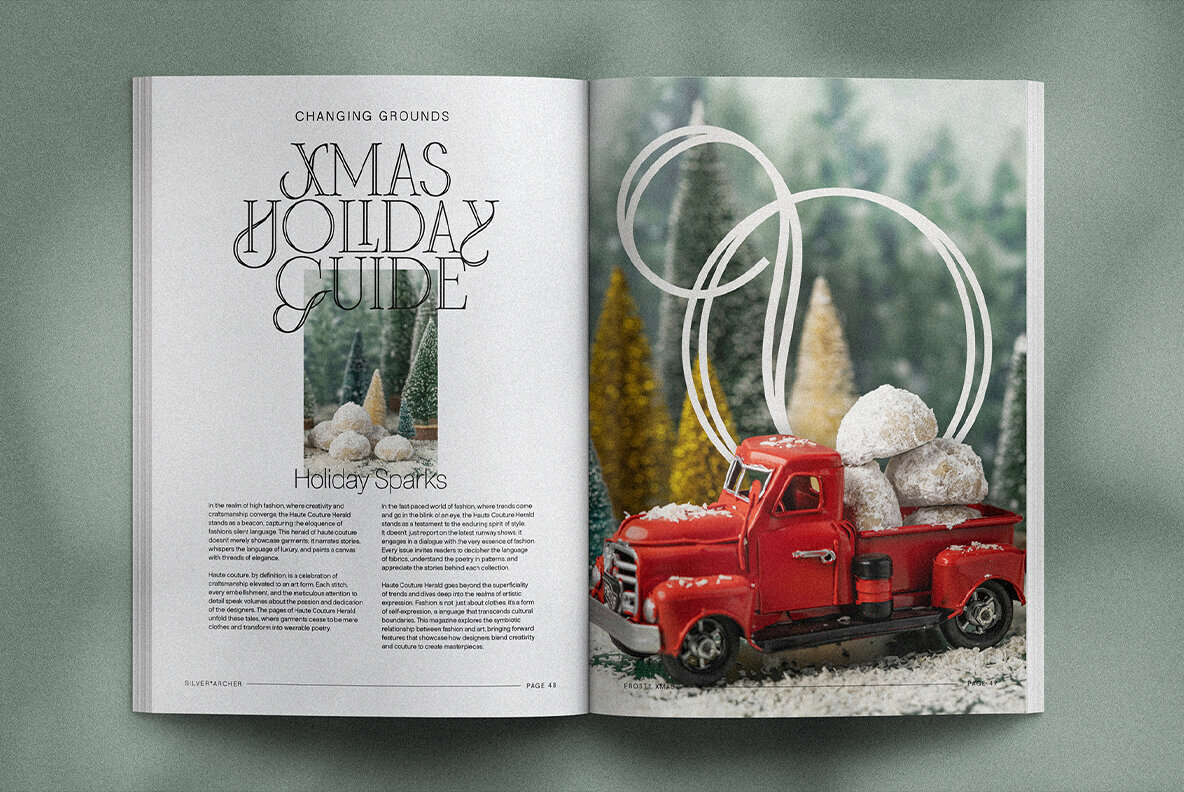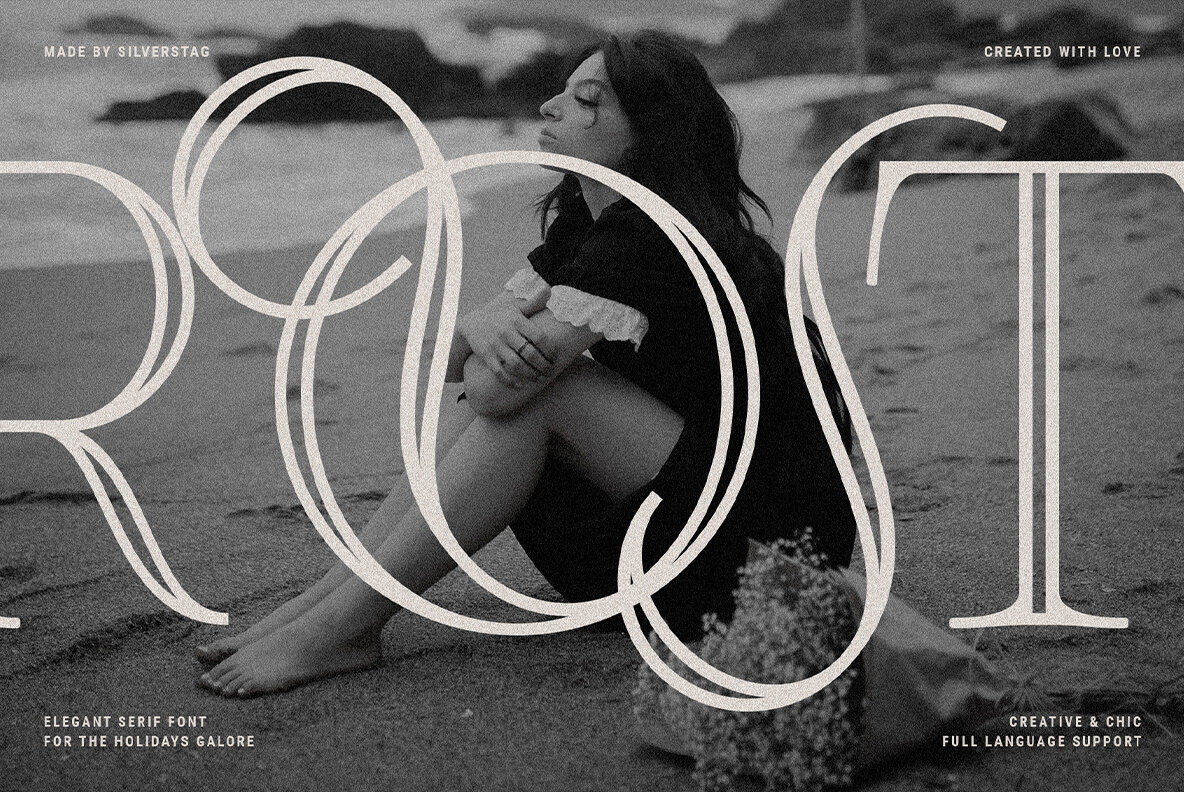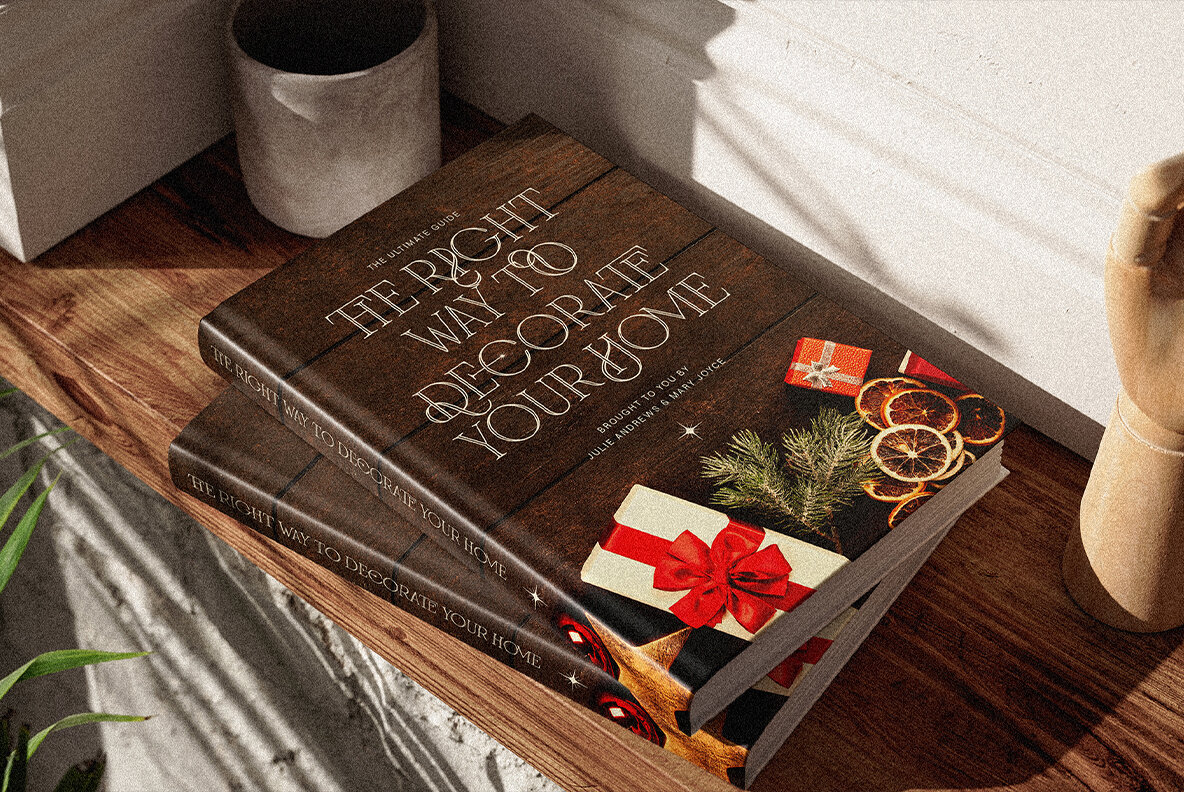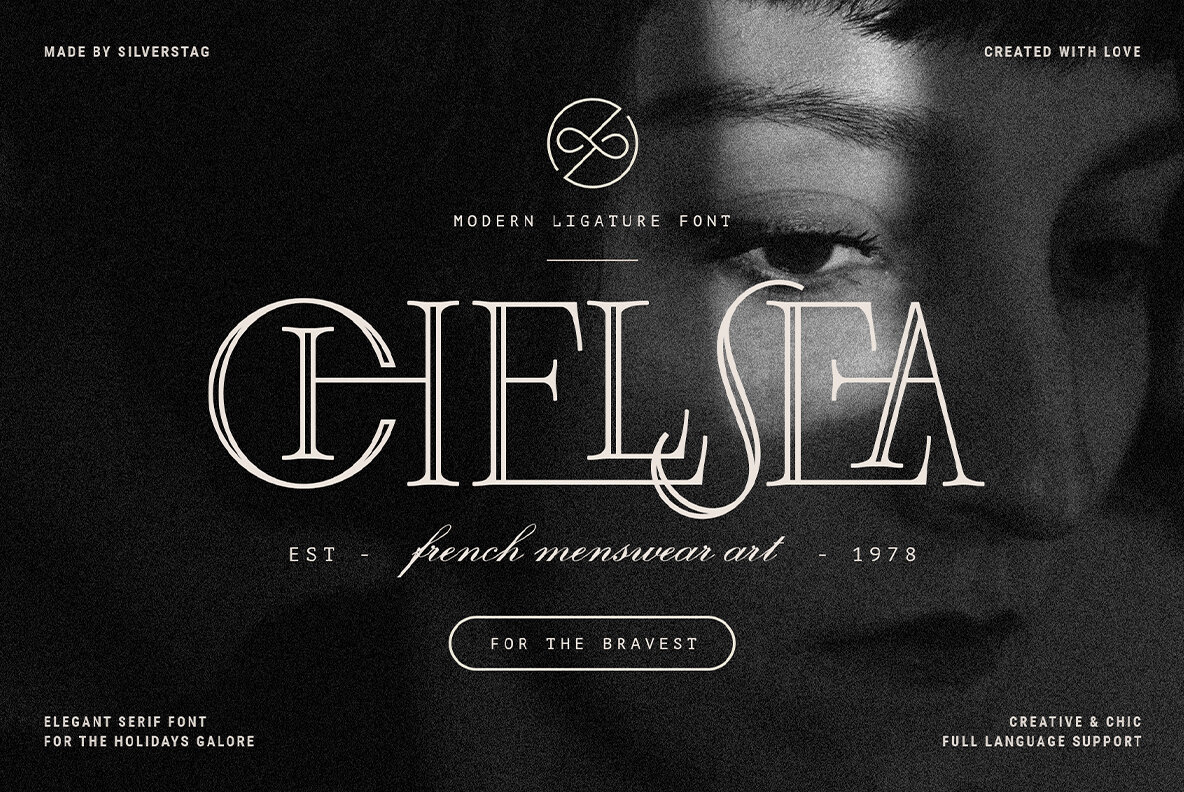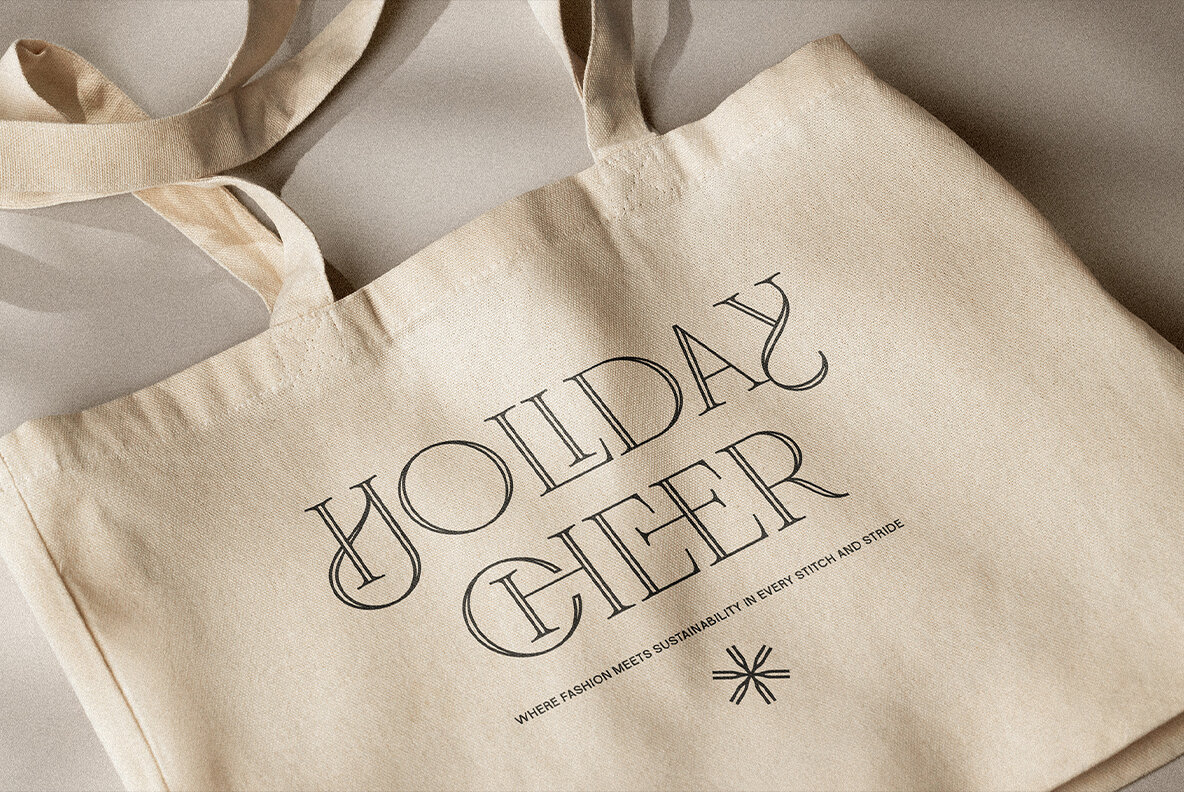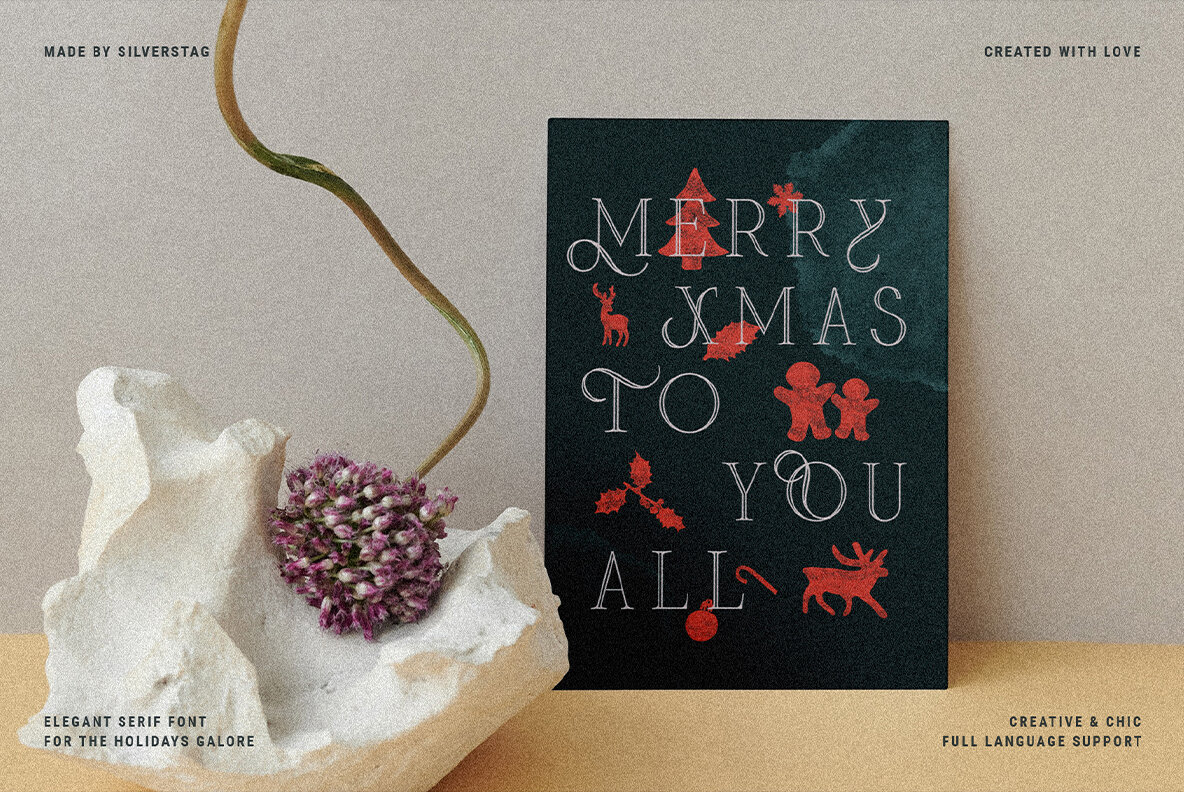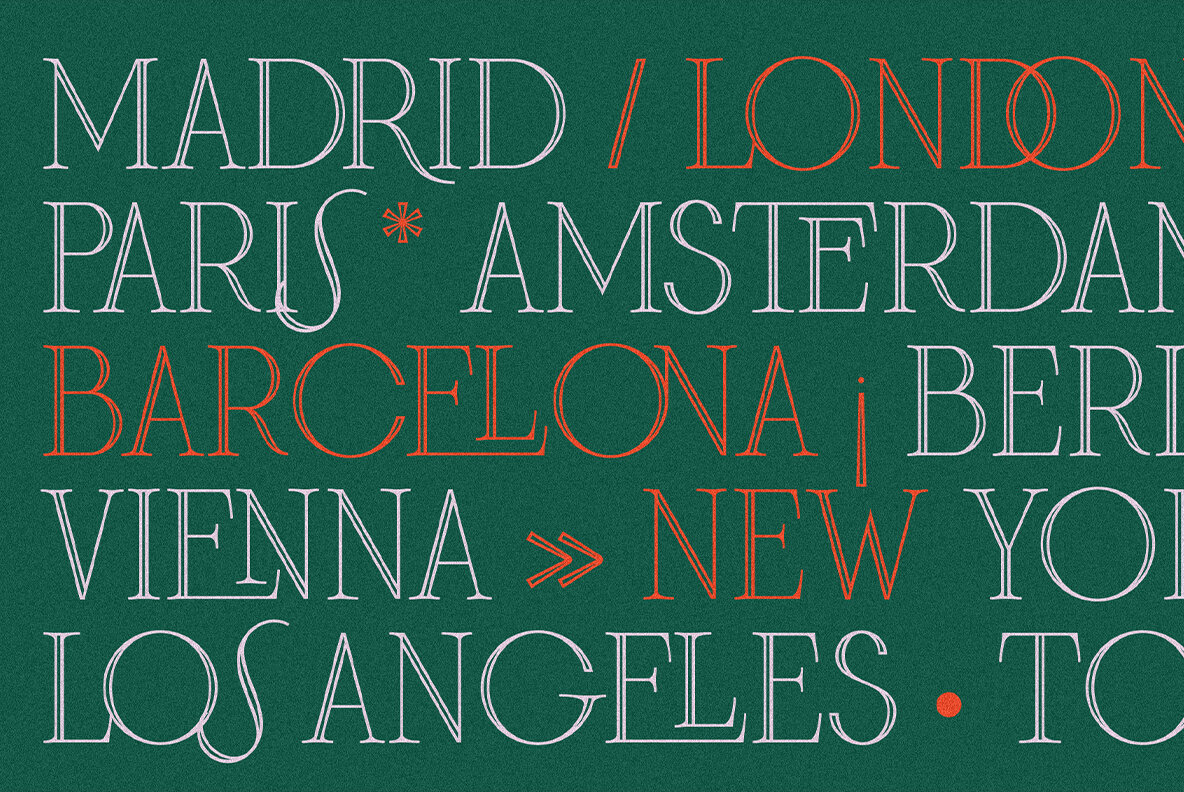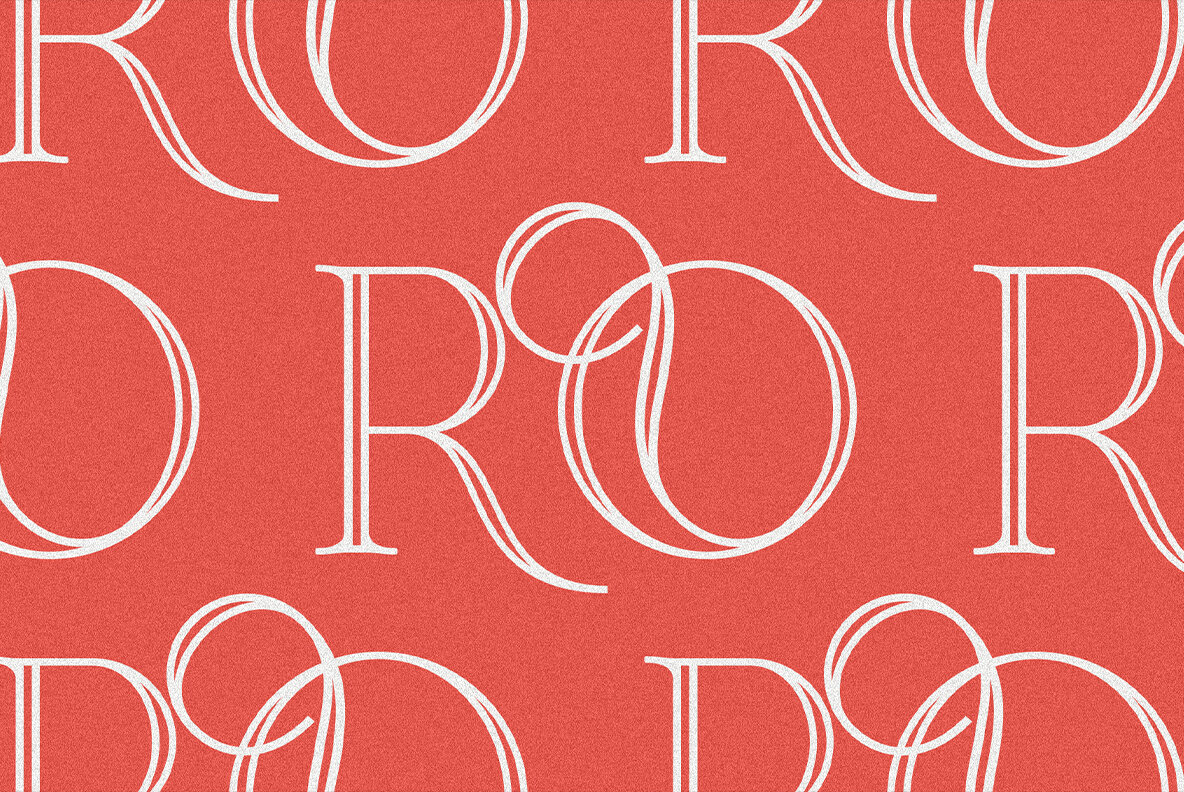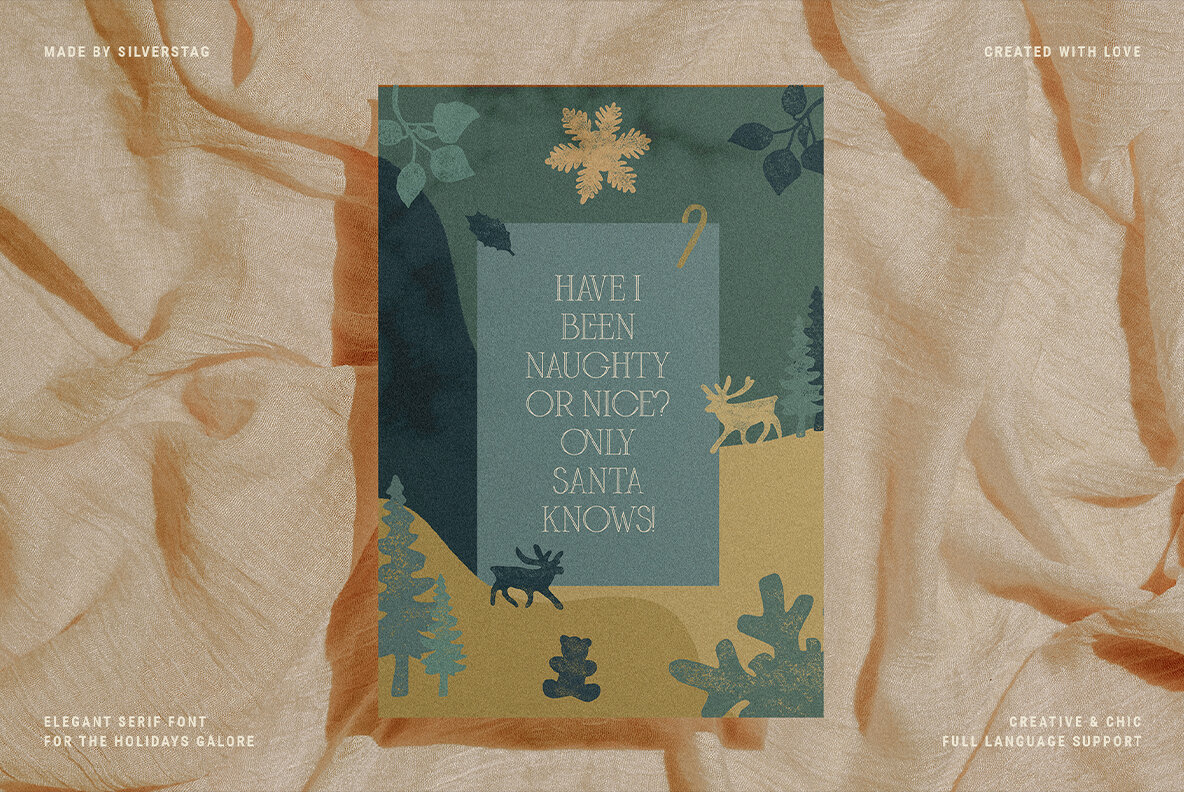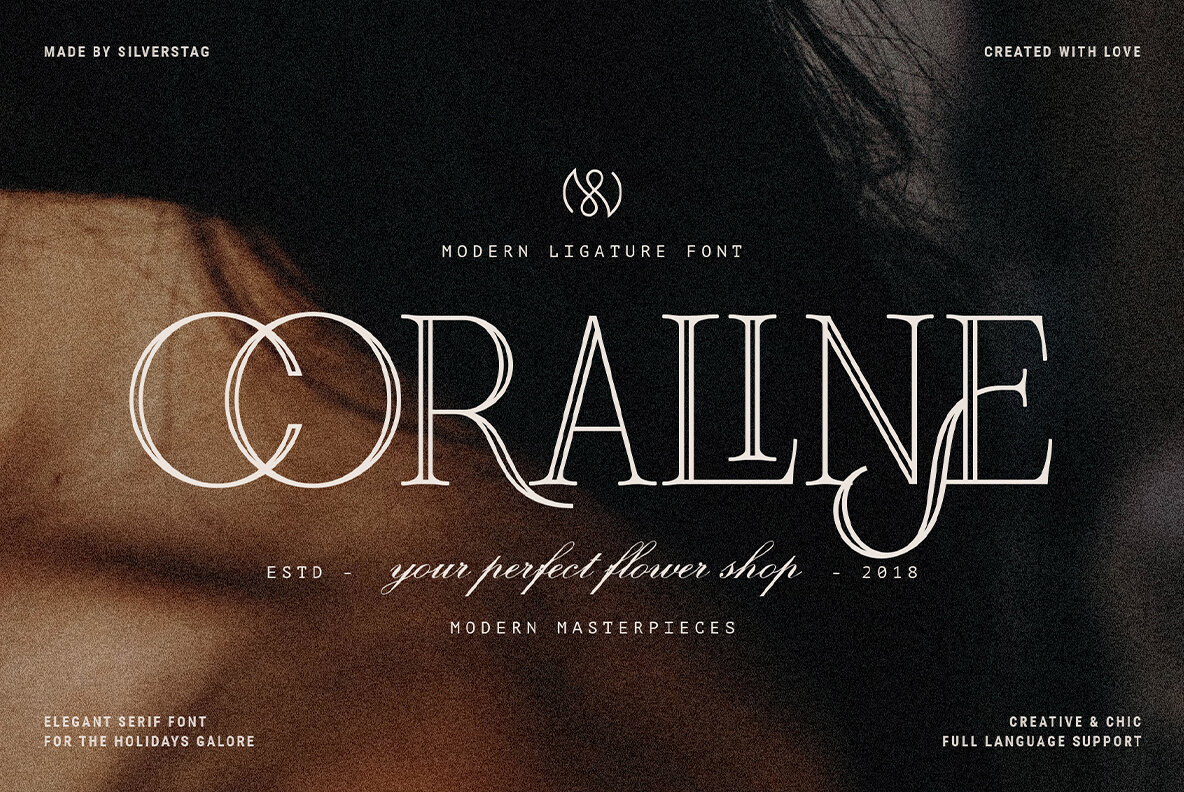
Frosty Xmas Font
expand_font Frosty Xmas Font Unwrap the charm of Frosty Xmas, a holiday serif font that adds timeless elegance to your designs. With whimsical doodles and support for 90+ la... SKU T21726 Holiday,Serif,Elegant,Whimsical,Festive,Swashes,Caps,Decorative,Display,Greeting Card,Old Style,Ornamented Explore Exceptional Fonts for Digital and Traditional Media Fontpath offers a large variety of fonts for every designer, all at affordable prices and in multiple formats. Browse our best in class fonts today for all your creative needs, you can find everything you need right here at our site! Fonts,sans,sans serif,retro,script,decorative,title,FontPath 20140312040223 Fontpath offers 200,000+ of the most professional fonts found online, start downloading today! Real-Time Font Discovery at Fontpath